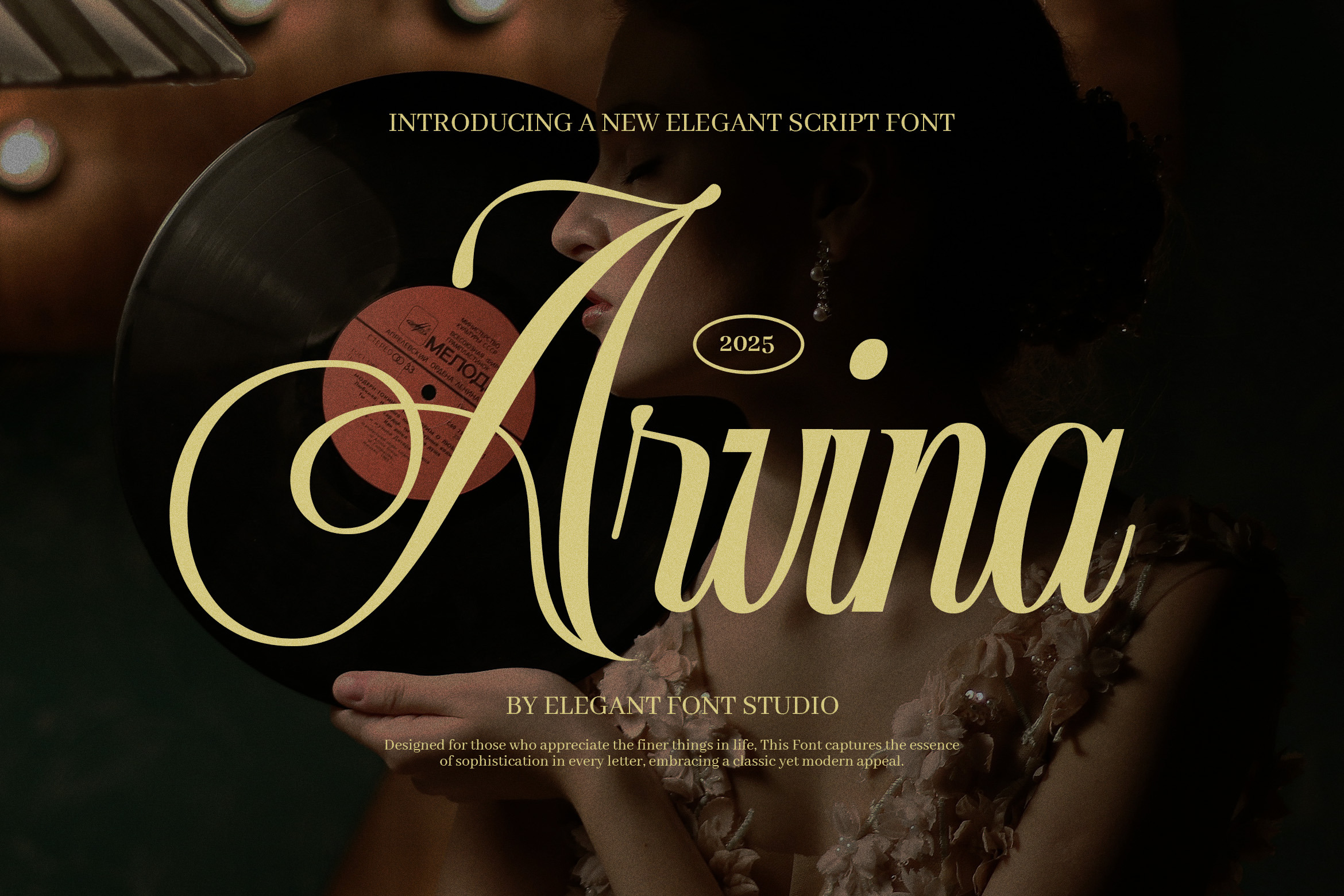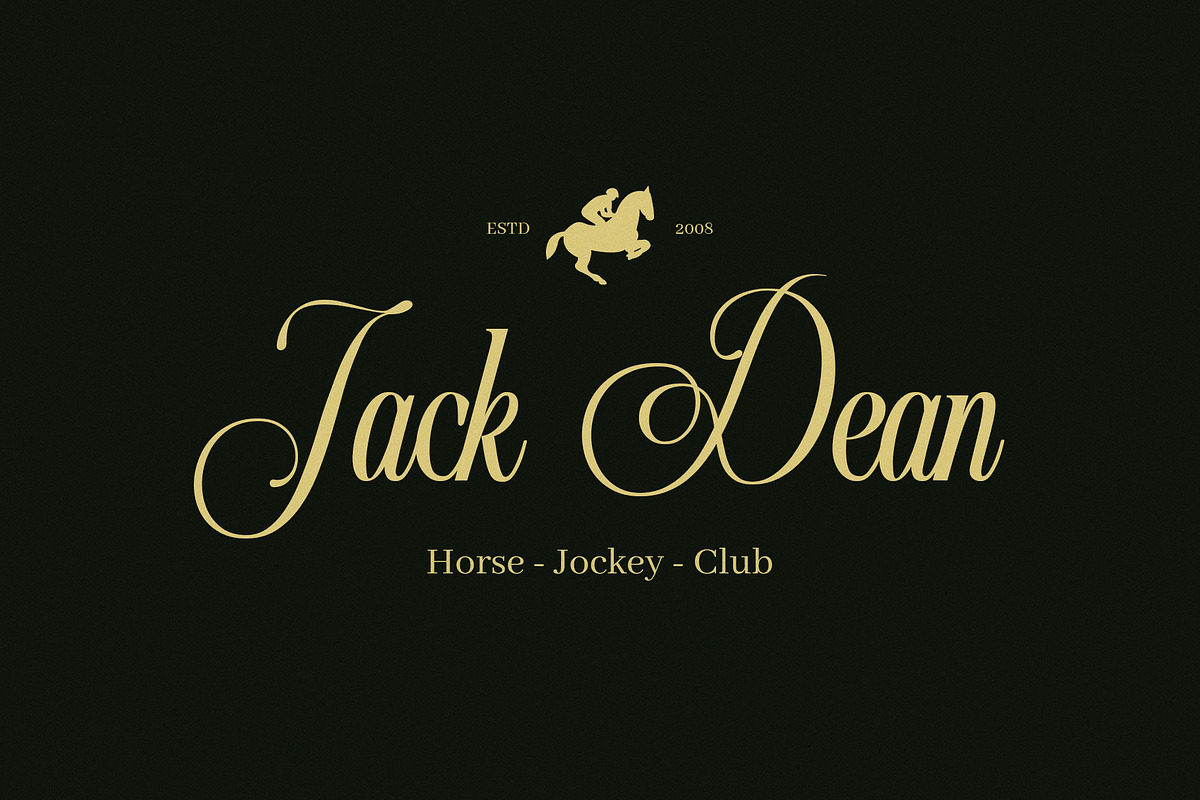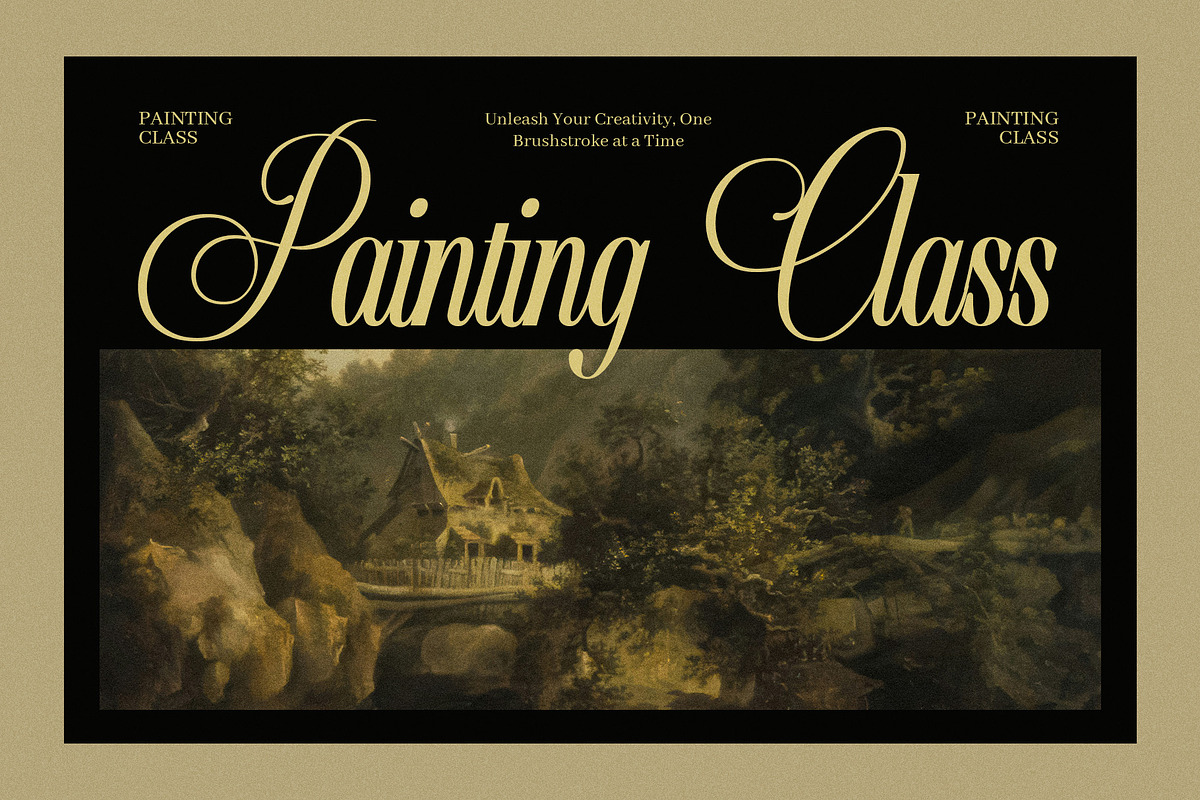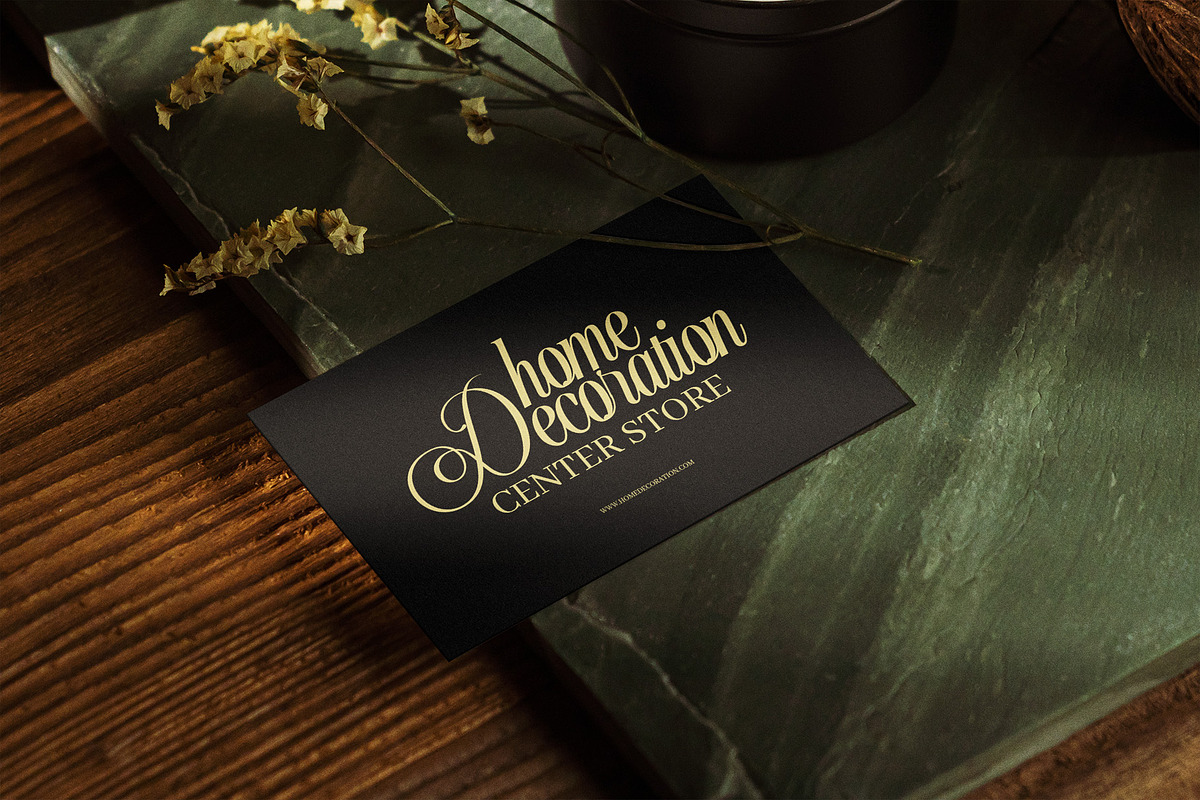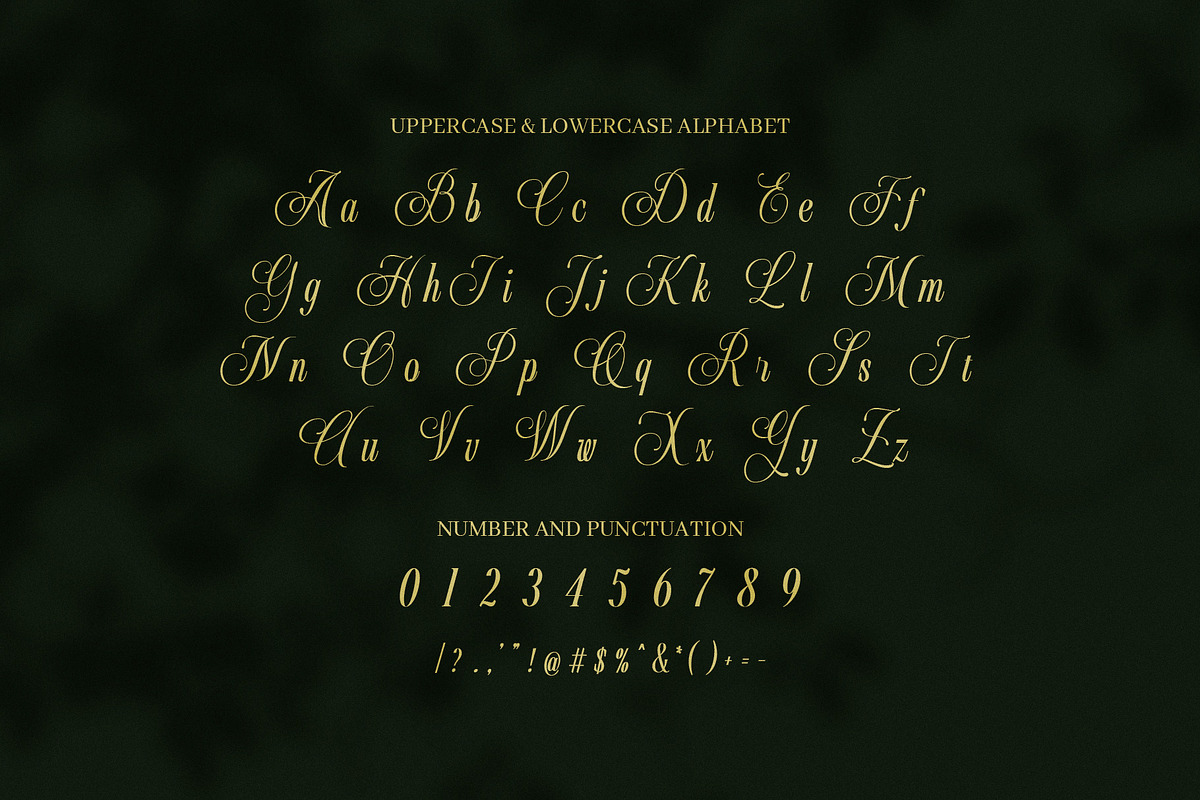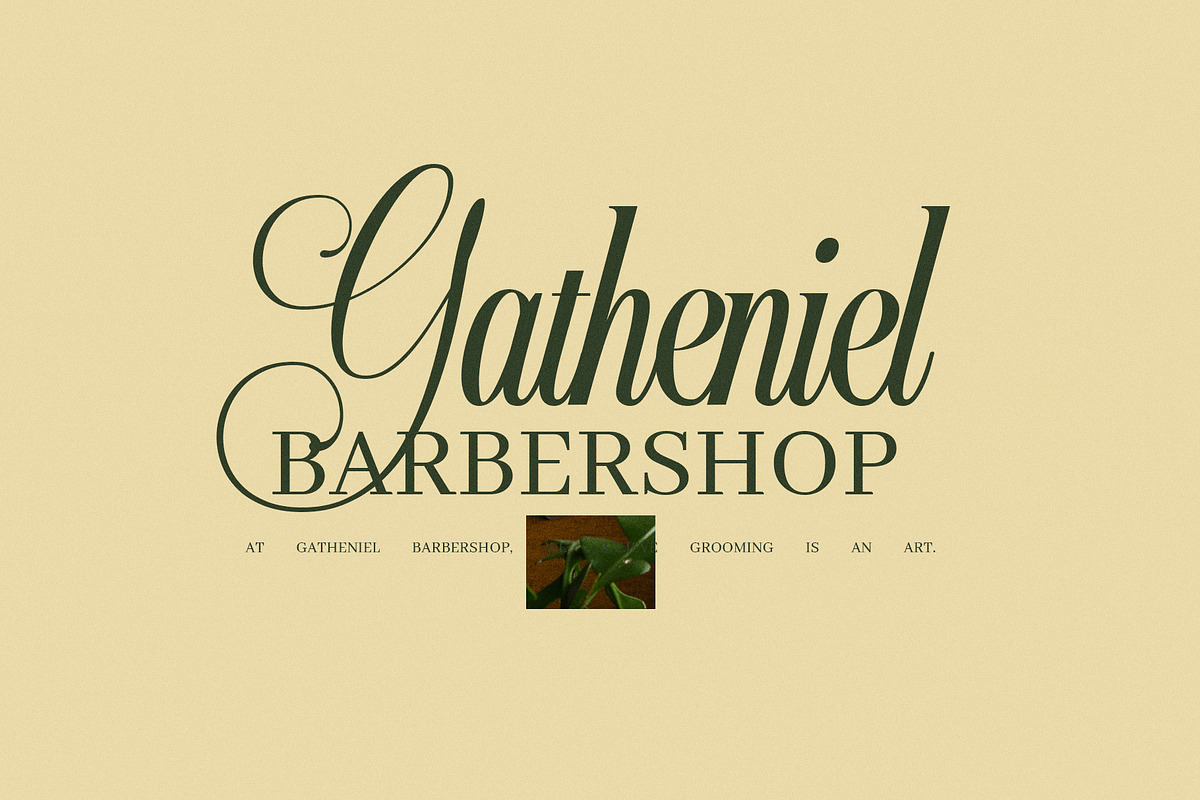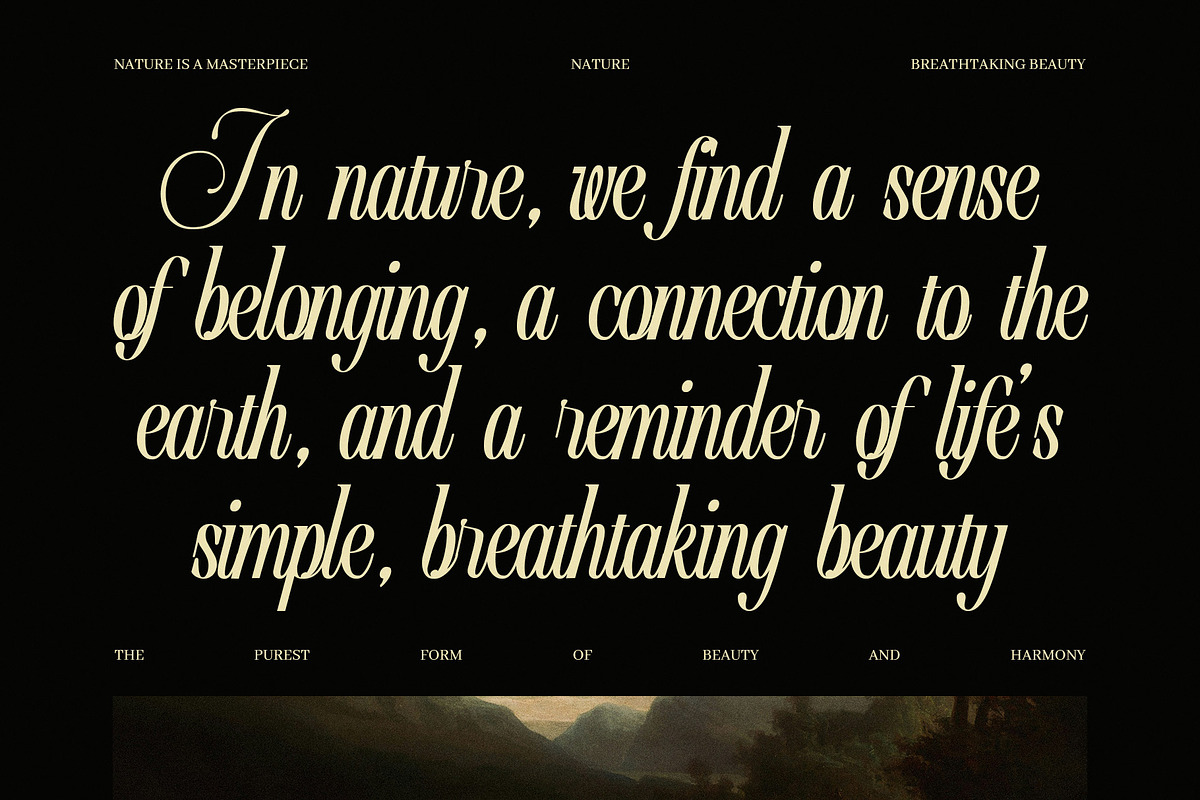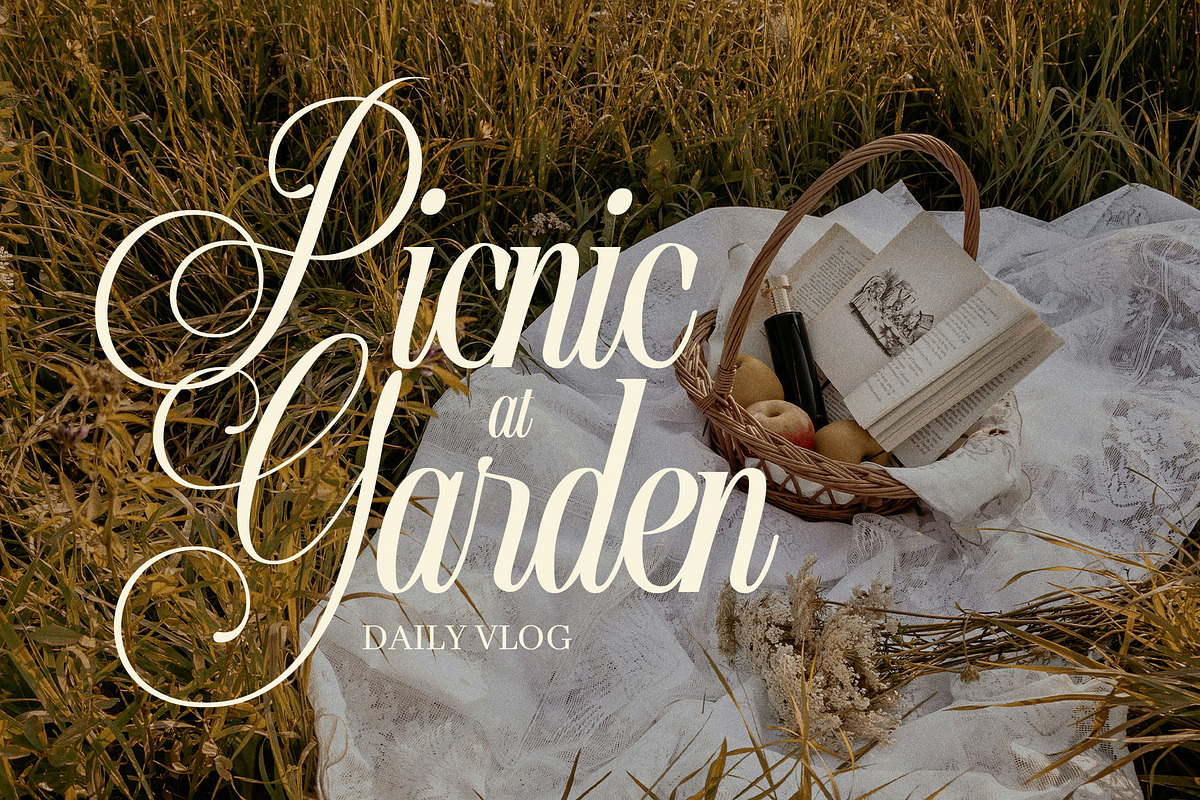
Arvina Wedding Script Font
Arvina Wedding Script Font is a refined, elegant script typeface designed to bring timeless beauty and charm to your creative projects. With its flowing lines, graceful curves, and beautifully crafted calligraphic strokes, Arvina exudes romance and sophistication—making it the perfect choice for designs that need a luxurious, handwritten touch.
Inspired by classic wedding calligraphy and modern script aesthetics, Arvina features a wide selection of alternate characters and stylistic ligatures, allowing you to create customized lettering with ease. Whether you’re designing wedding invitations, save-the-date cards, or event signage, Arvina helps you convey love and elegance with every stroke.
This versatile script font goes beyond just weddings. Arvina is also an excellent choice for branding, vintage logos, album covers, fashion packaging, magazine titles, social media graphics, and website design. Its smooth, flowing lines and high-contrast strokes add a refined personality to any design, while maintaining excellent legibility.
What truly sets Arvina Wedding Script Font apart is its romantic and expressive character. The balance between modern style and classic calligraphy gives it a unique versatility—perfect for boutique branding, luxury packaging, music-themed projects, and vintage-inspired designs.
Each letter has been carefully handcrafted to ensure harmonious flow and aesthetic consistency, making your typography look effortlessly stylish. Whether you're crafting a heartfelt message or building an elegant brand identity, Arvina brings an air of romance, class, and authenticity.